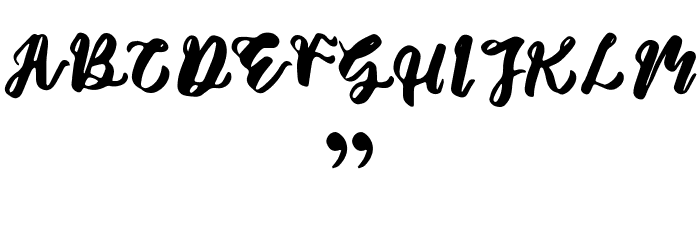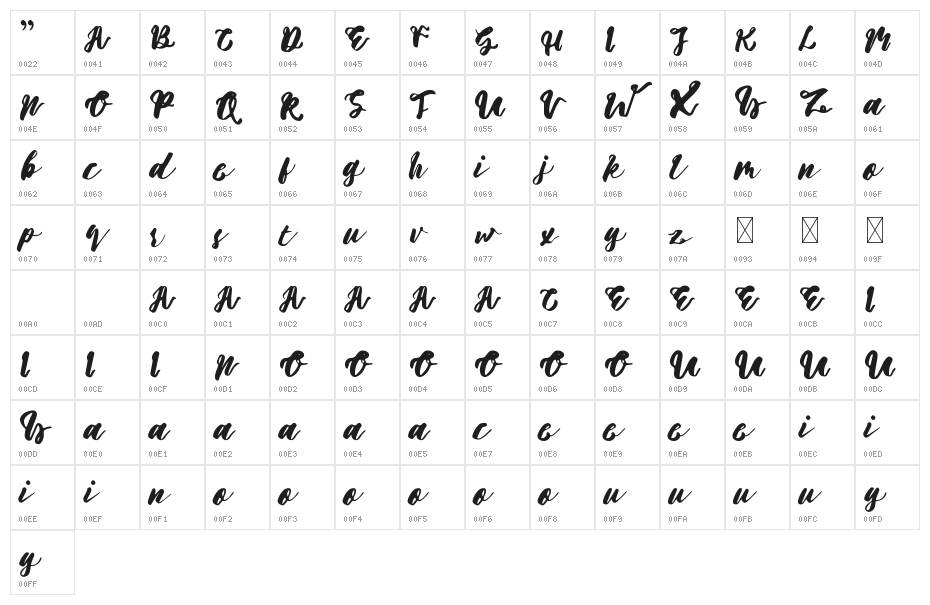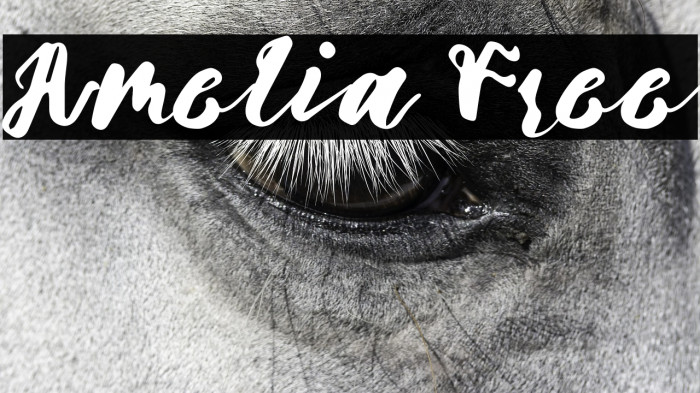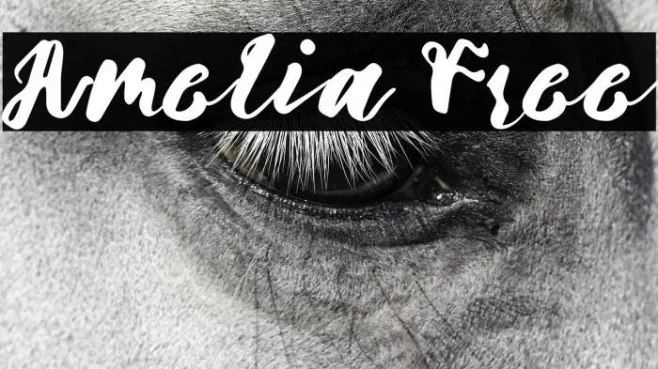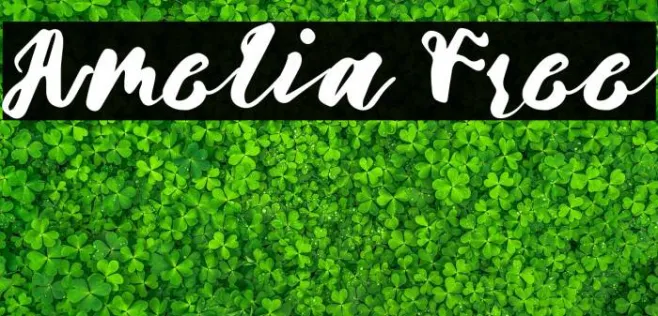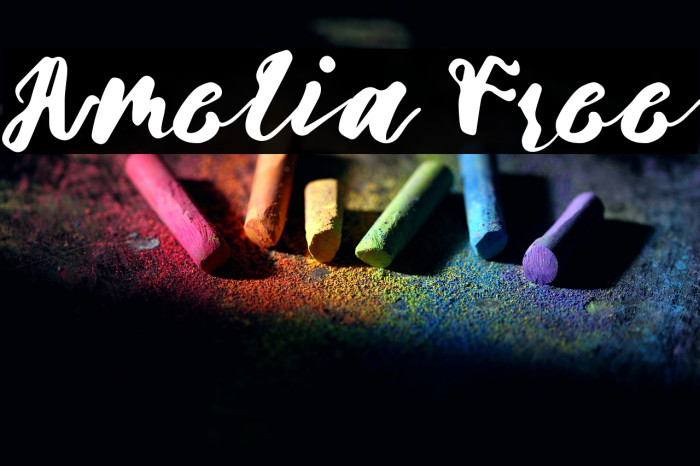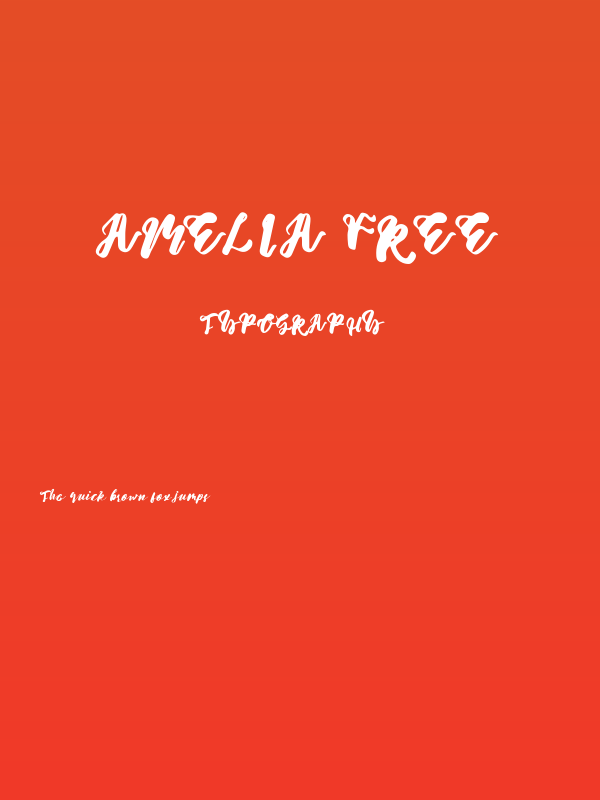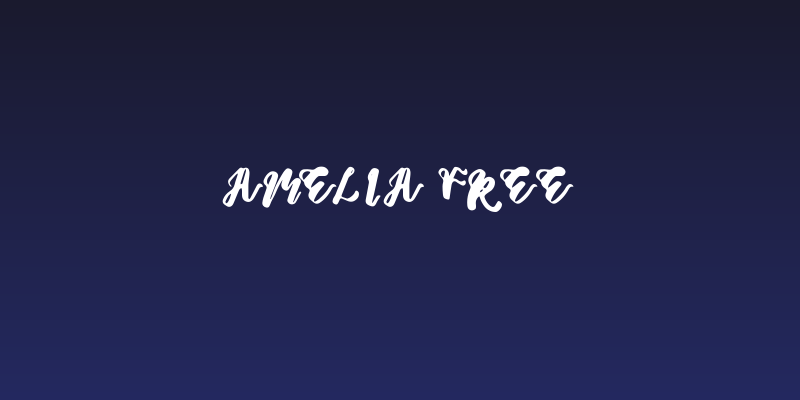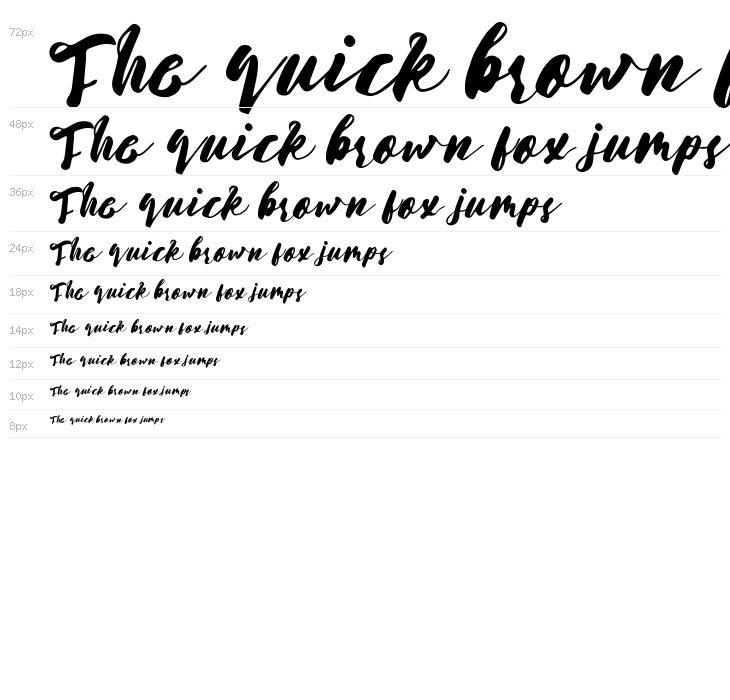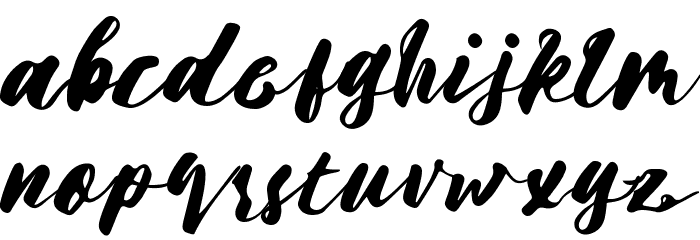
Amelia Free Font
Amelia Free Description
This font features a bold and expressive script style with a handwritten appearance. The letters are connected in a flowing manner, giving it a dynamic and lively feel. The strokes are thick and consistent, creating a strong visual impact. The uppercase and lowercase letters maintain a cohesive style, with slight variations in the curves and loops that add character. The font exudes a sense of elegance and creativity, making it suitable for designs that require a personal touch. Its bold nature ensures readability while maintaining an artistic flair.